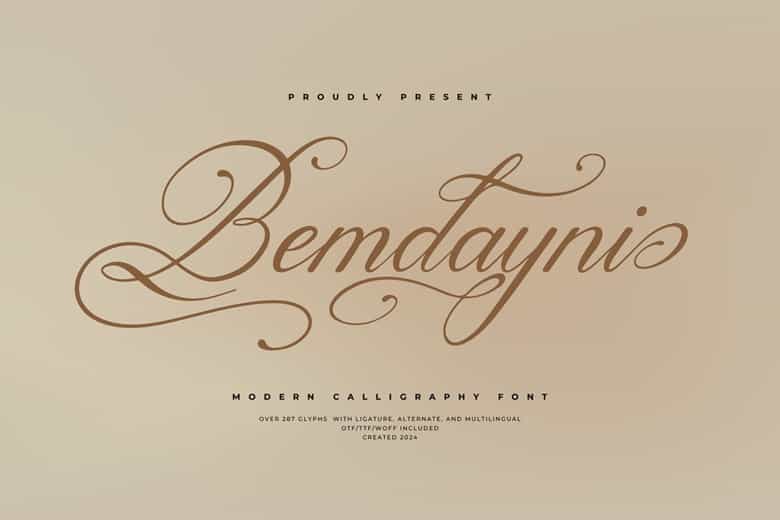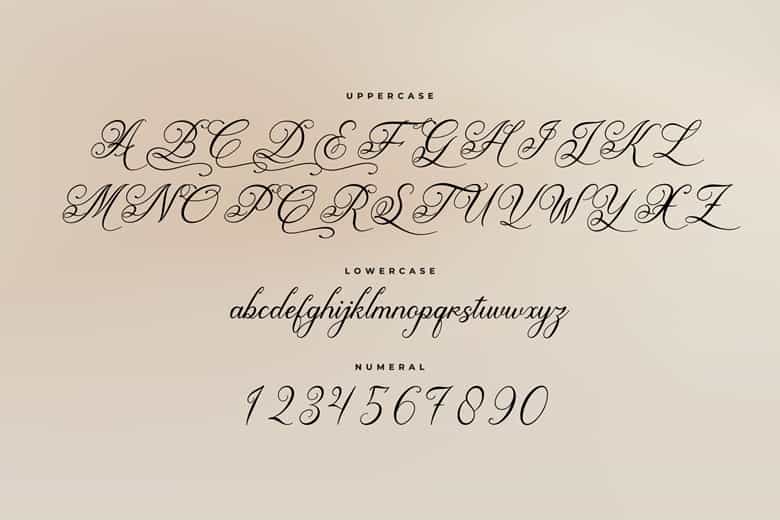
Bemdayni is a beautiful and elegant calligraphy script font with clean cut and smooth lines from the letters. It is perfect for using while making invitations, greeting cards and other crafts.